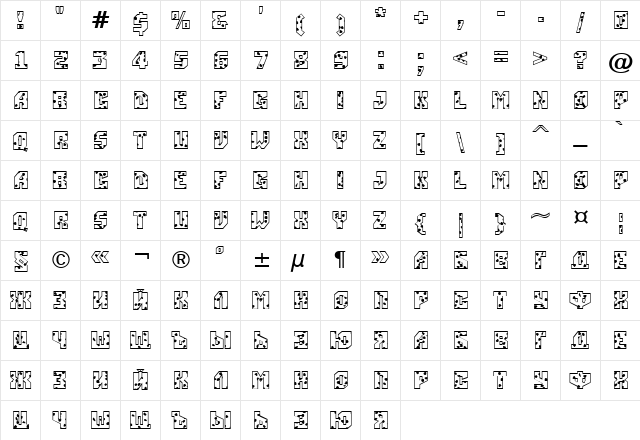
a_SimplerSpot Normal
Design Context for a_SimplerSpot Typeface
a_SimplerSpot is a composed and adaptable typeface that performs quietly and consistently across a wide range of design contexts.